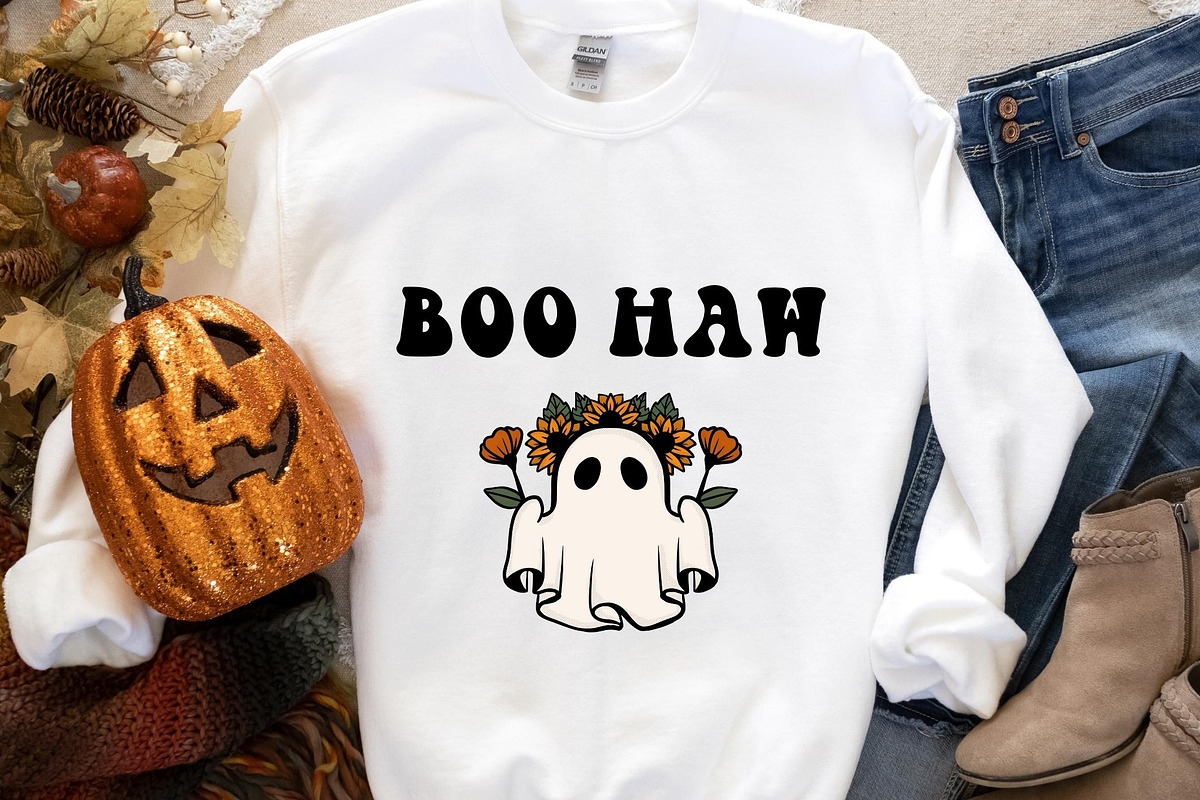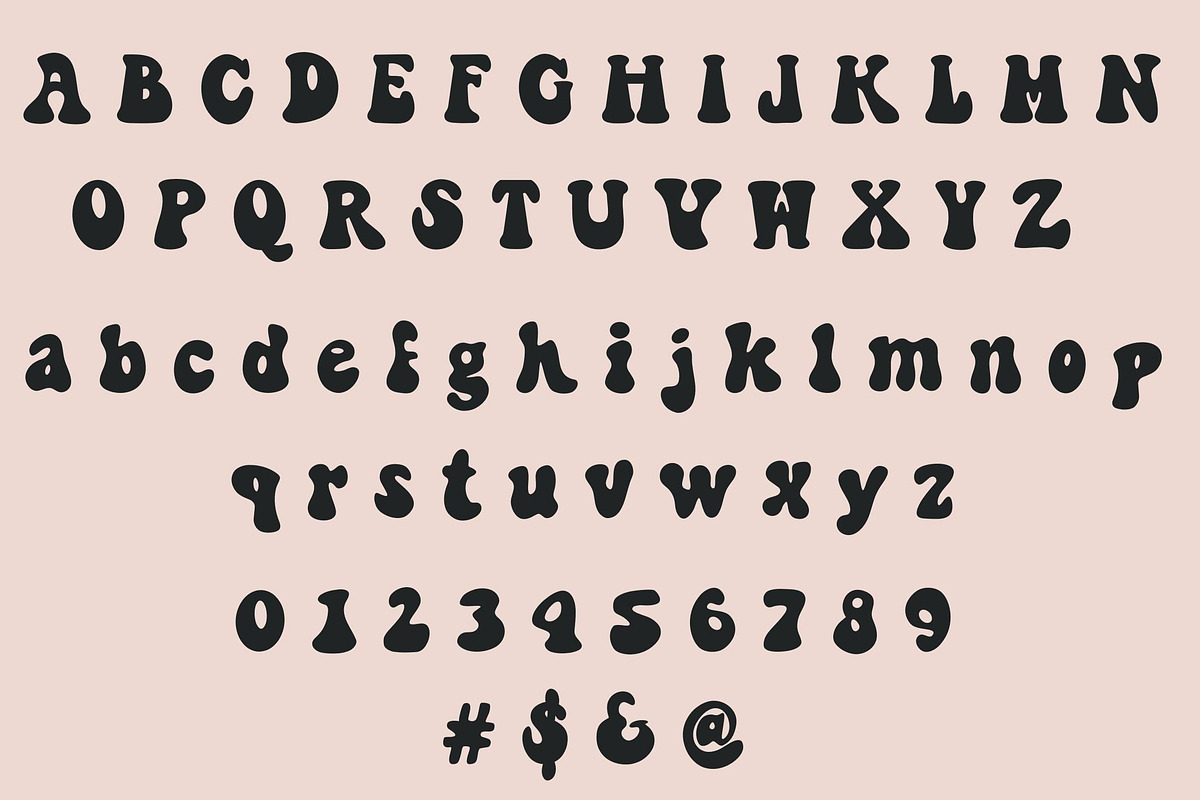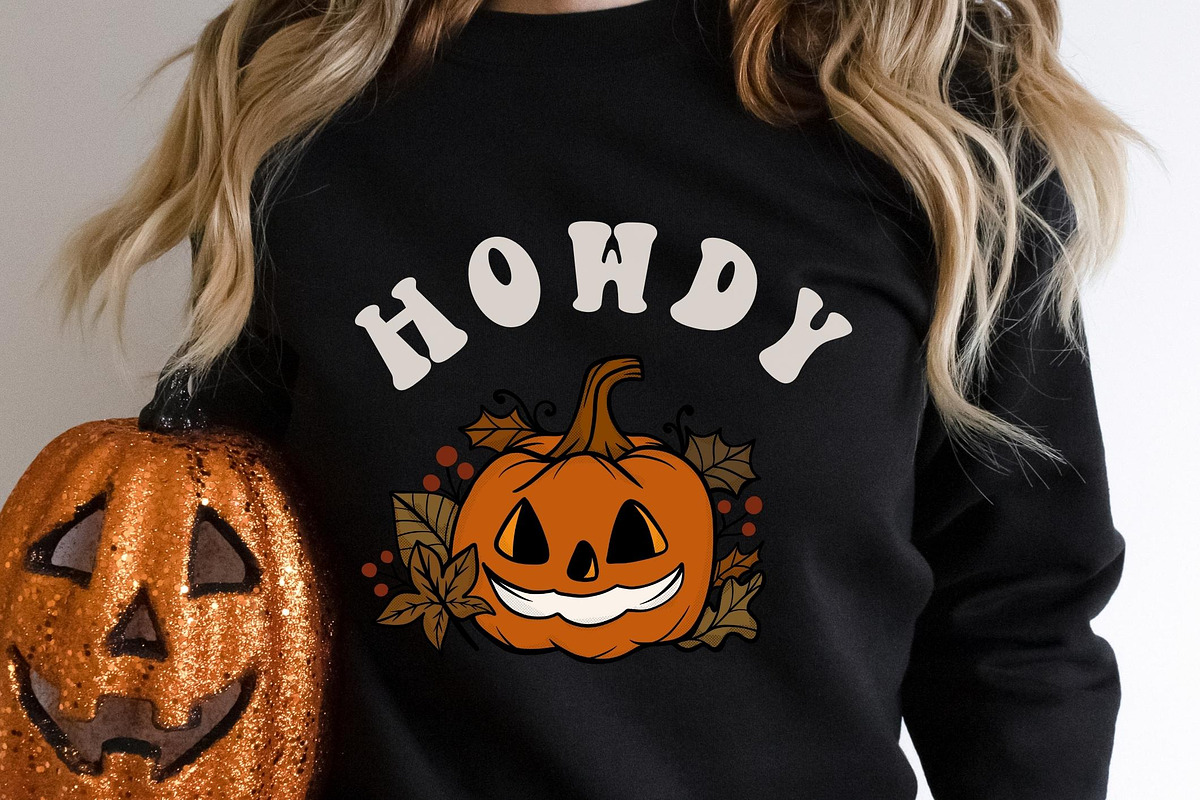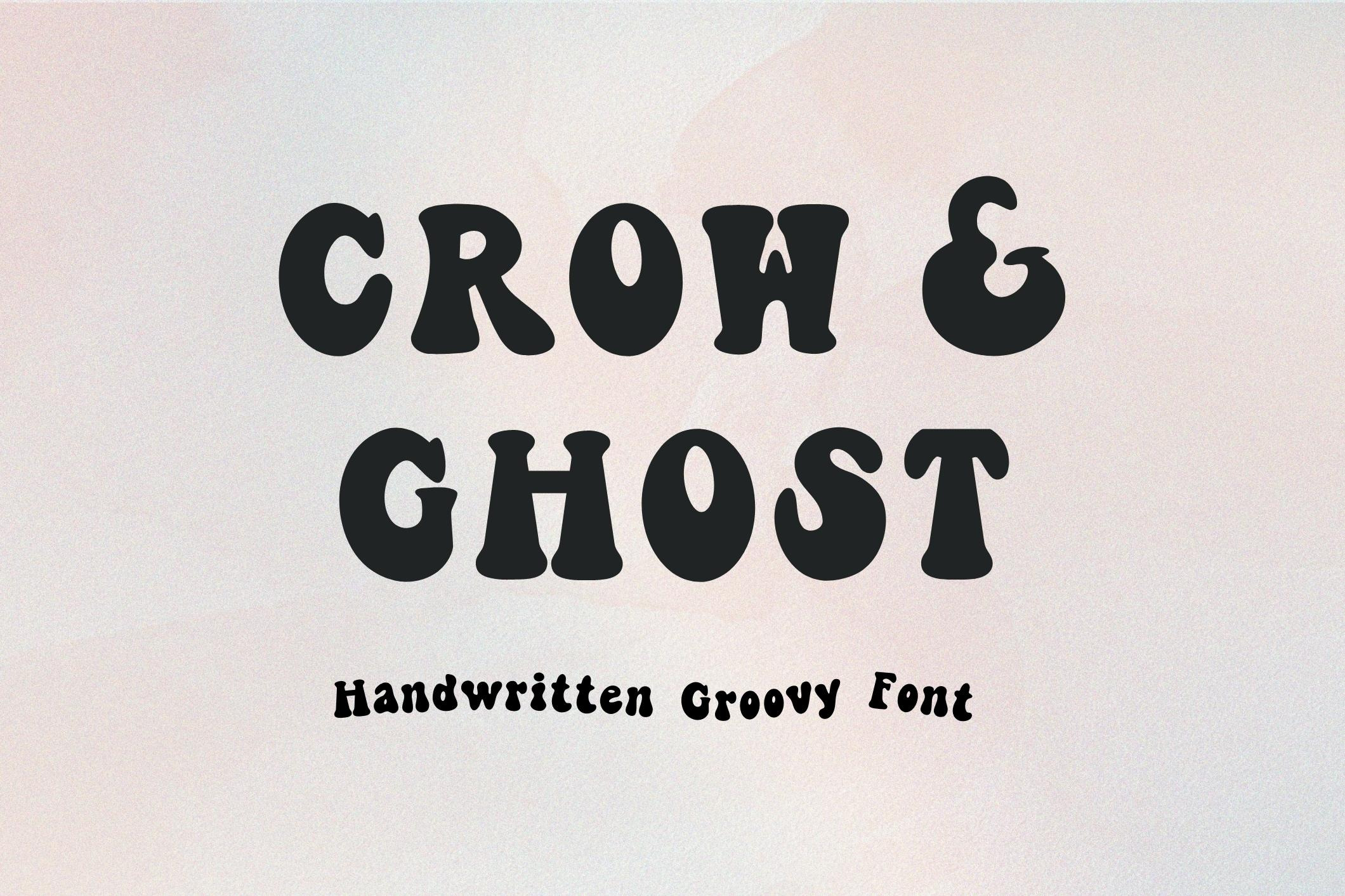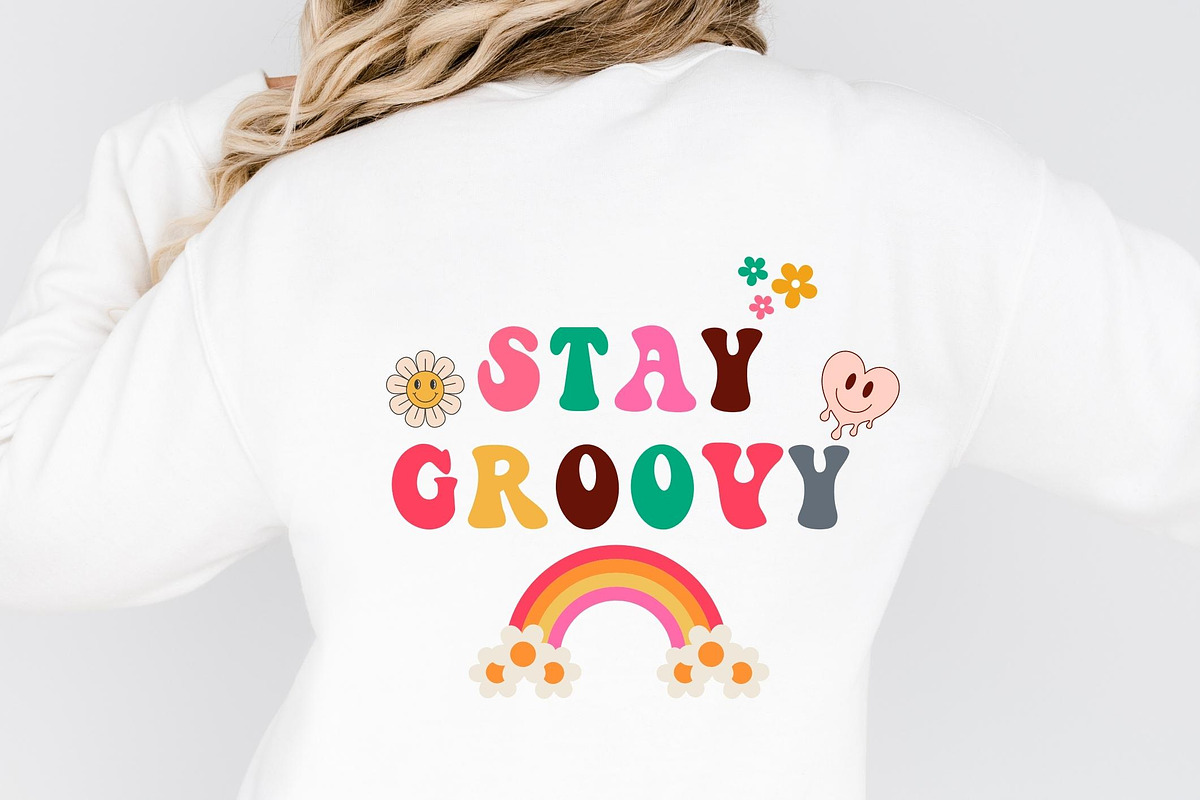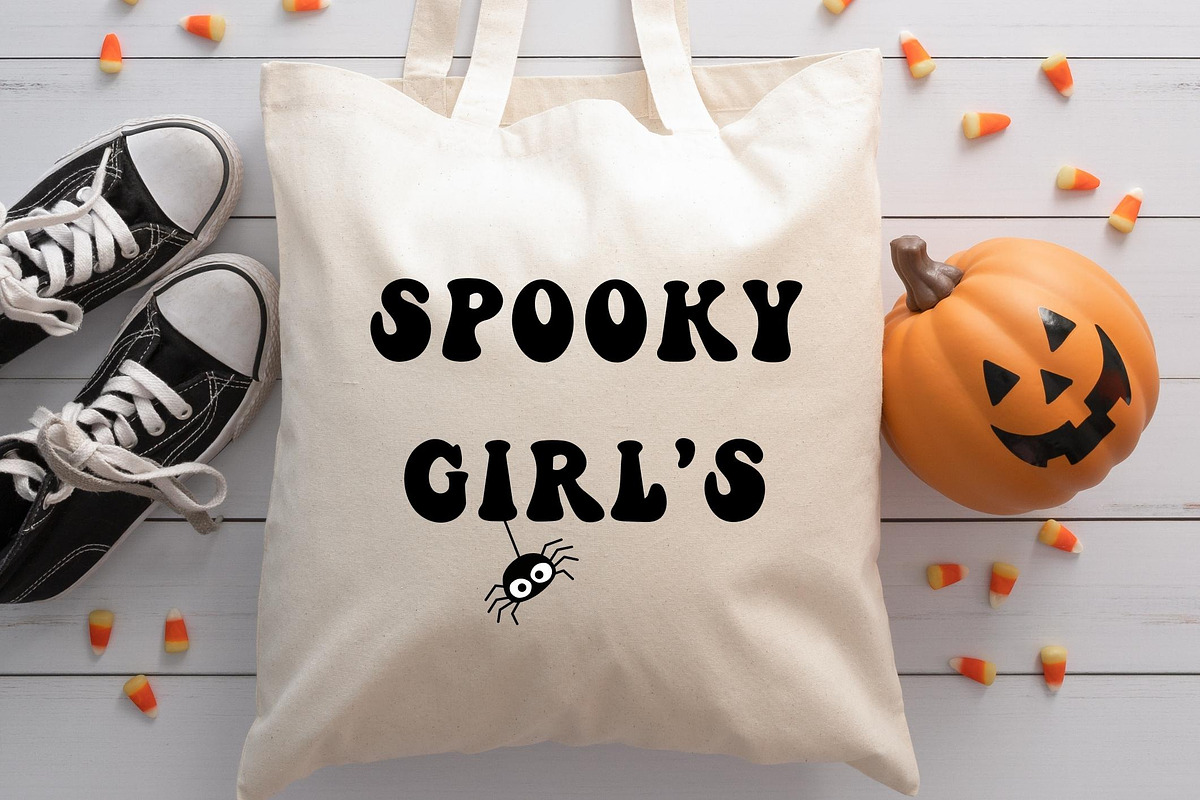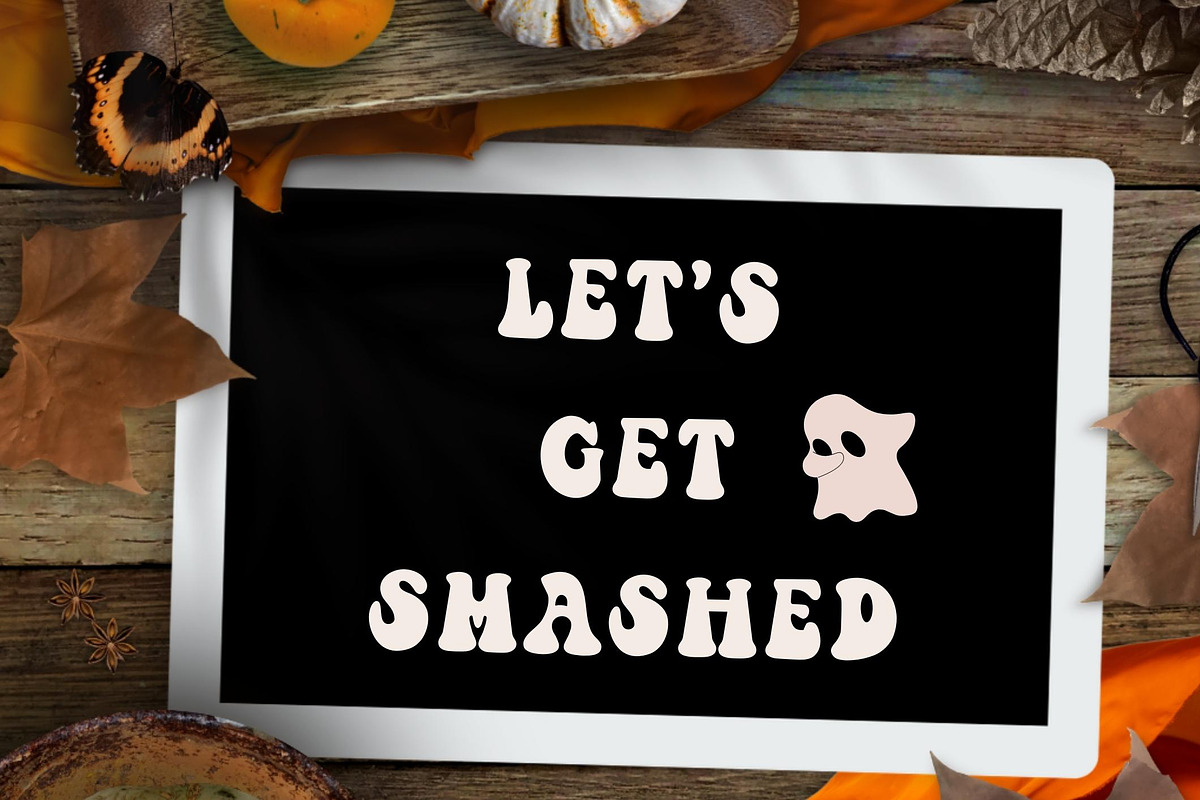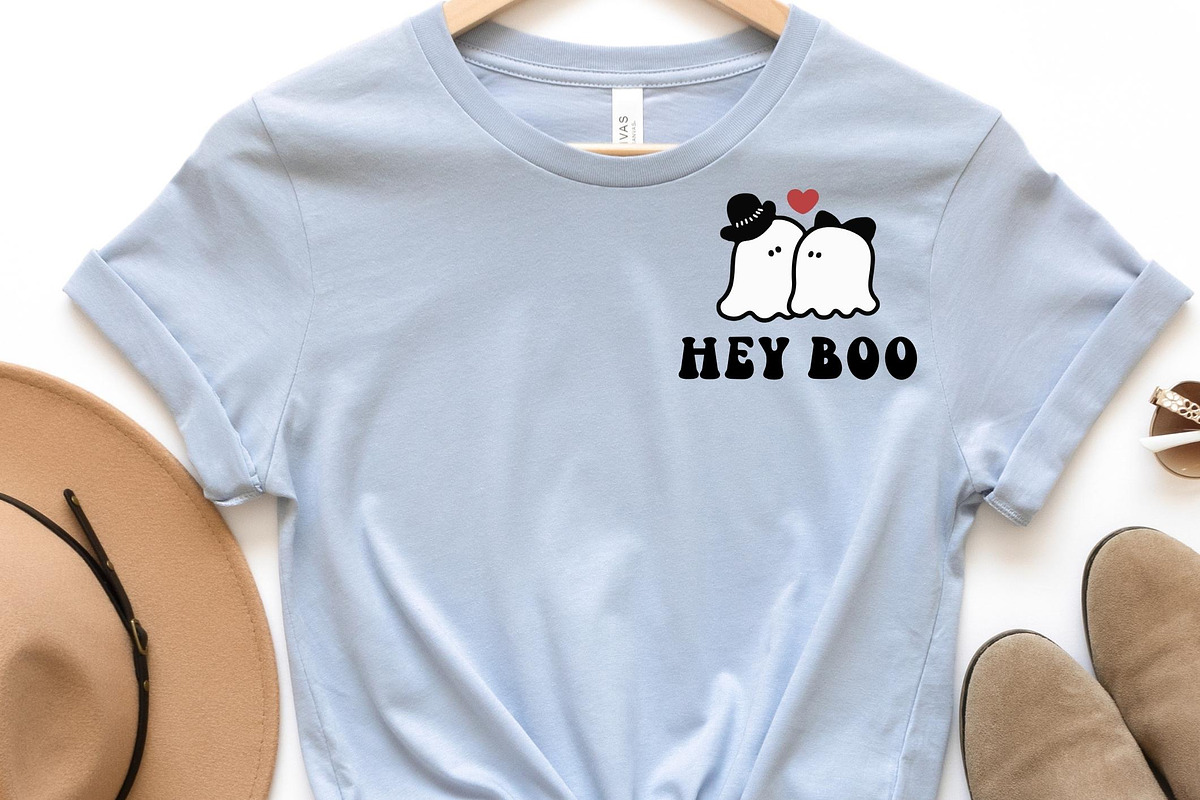
Crow and ghost - Groovy font
Crow and ghost is a hand-drawn font with groovy letters!
This font is perfect for creating retro shirt designs, Halloween, Christmas, stickers, phone cases, vinyl designs, instagram quotes, branding, logos, procreate and more!